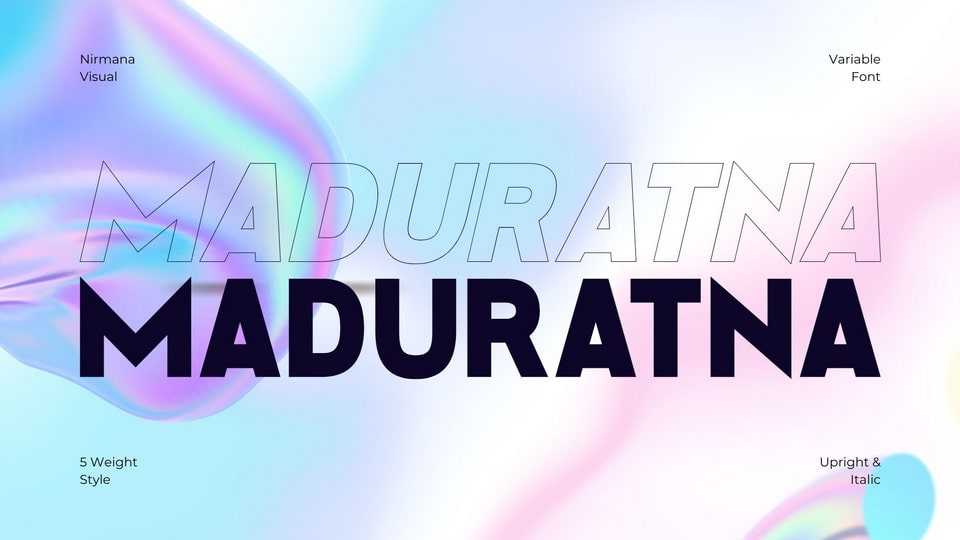
Download Maduratna font, a modern sans serif typeface, perfect for elevating your designs to the next level. Maduratna font features sleek and versatile look that is ideal for a range of projects, from branding and advertising to editorial design and web design.